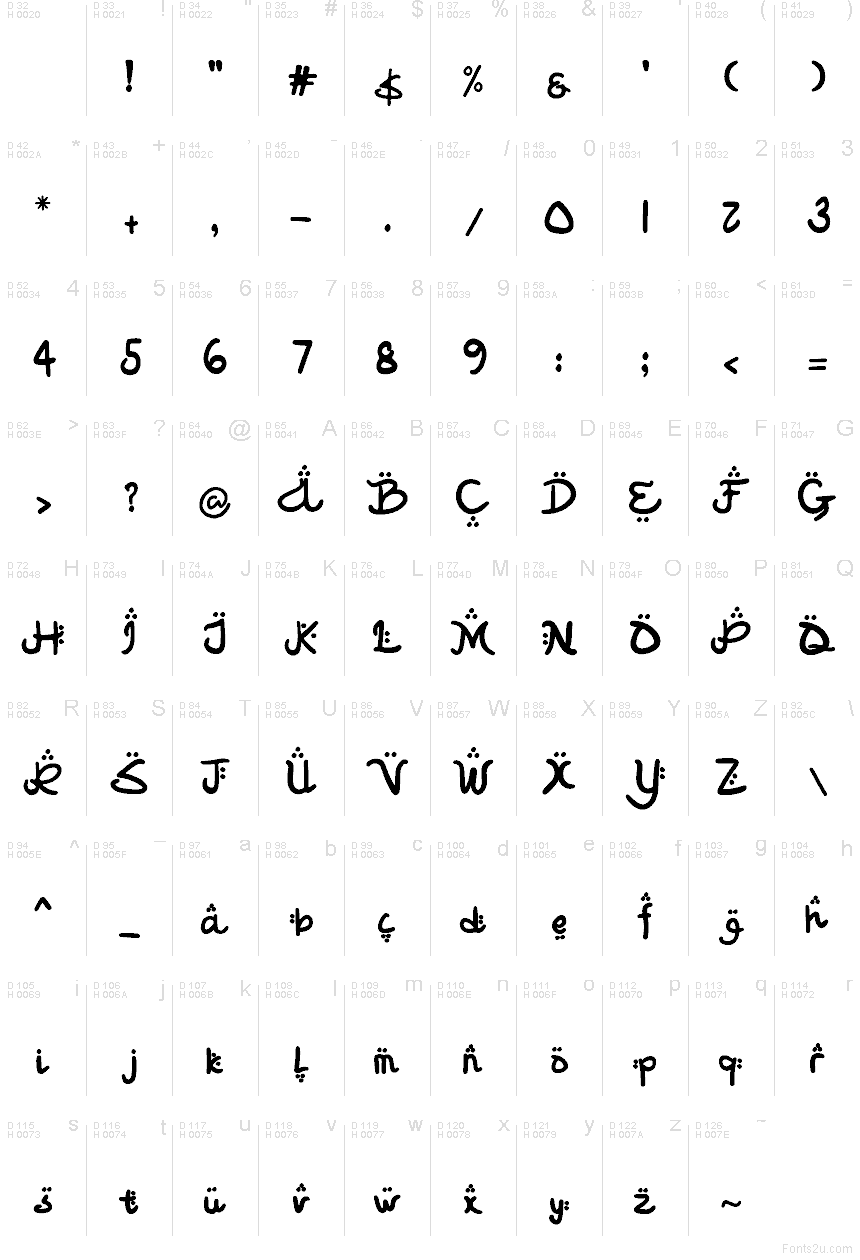
Shafwaein Yasser
Shafwaein Yasser font by Dhabee Studio is a free foreign faux-arabic typeface that instantly sets a Middle Eastern, mystical mood without losing legibility. Its rounded strokes, playful loops, and clustered dot accents echo handwritten signage and storybook titles, giving text a warm, market-stall energy rather than a stiff, formal vibe. The slightly uneven rhythm feels human and inky, like letters brushed quickly onto paper.
Using Shafwaein Yasser, you can brand hookah lounges, food trucks, and café menus, or dress up posters, party invitations, game titles, and themed event graphics that need a strong “Arabian nights” cue. This free font works beautifully at larger sizes where its curls and dots can breathe; pair it with a simple geometric sans for body copy to keep your layouts readable and grounded.